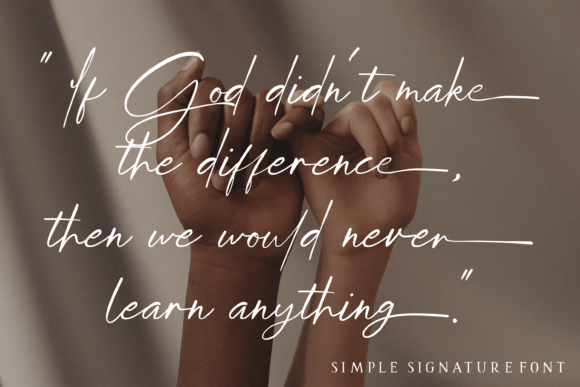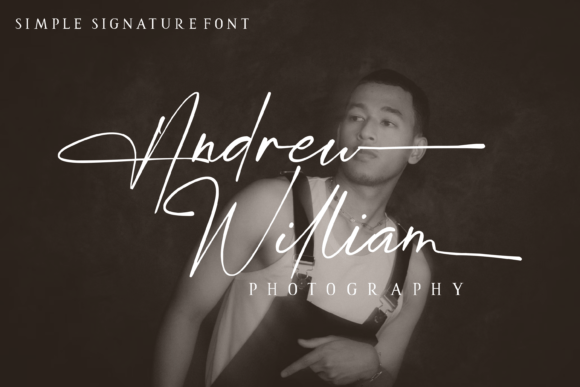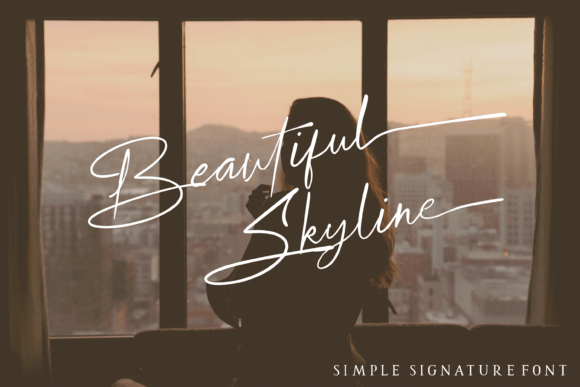
Introduction to Rousset Bilast Font
There’s something special about the first spark of creativity – the moment when an idea starts to take shape and your imagination runs wild. For designers, this moment is often the result of finding the perfect font to bring their vision to life. And that’s exactly what Rousset Bilast Font does – it ignites the creative flame with its elegant, handwritten signature style.
Whether you’re working on a high-end wedding stationery project, crafting a unique logo for a photographer, or simply want to add a touch of personality to your website, Rousset Bilast Font is a valuable resource that can elevate your design to the next level. With its high-quality features and transparent background, this font is perfect for designers who want to create truly unique and eye-catching designs.
Key Features of Rousset Bilast Font
- Unique, modern design with a transparent background, making it perfect for layered designs.
- Designed for use in a variety of creative projects, including logos, branding, and editorial content.
- Perfect design resource for graphic designers, illustrators, and digital artists seeking a unique and high-quality font.
Honest Review: Rousset Bilast Font
As a designer, I’m always on the lookout for high-quality design resources to elevate my creative projects. The Rousset Bilast Font is one such gem that I’ve had the pleasure of working with.
What works well: ✨ The Rousset Bilast Font is incredibly versatile, suitable for a wide range of design applications, from headings to body text. Its elegant script style adds a touch of sophistication to any design, making it perfect for creative projects that require a premium look.
- High-quality design with clear, crisp lines and a transparent background
- Perfect for design projects that require a touch of elegance and sophistication
However, there are a few limitations to consider: ⚠️ The font may not be as effective for projects that require bold, statement typography, as its elegant style can come across as understated. Additionally, some users may find the font’s script style too ornate for certain design applications.
Overall, I’m thoroughly impressed with the Rousset Bilast Font. Its high-quality design and versatility make it an excellent addition to any designer’s toolkit. While it may not be suitable for every project, it’s a valuable resource that I highly recommend for designers seeking to elevate their creative projects.
Tips for Getting the Most Out of Rousset Bilast Font
For the best results, use the Rousset Bilast Font on a transparent background to give your design a clean and modern look. Experiment with different font sizes and styles to find the perfect balance for your project.
Common Use Cases for Rousset Bilast Font
The Rousset Bilast Font is perfect for various design projects, including:
- Business cards and marketing materials
- Editorial and publishing projects
- Branding and logo design